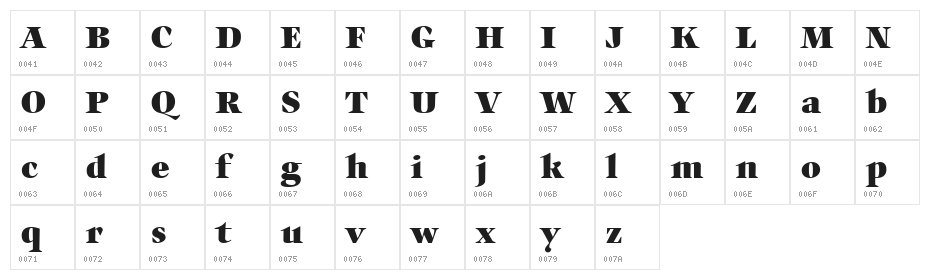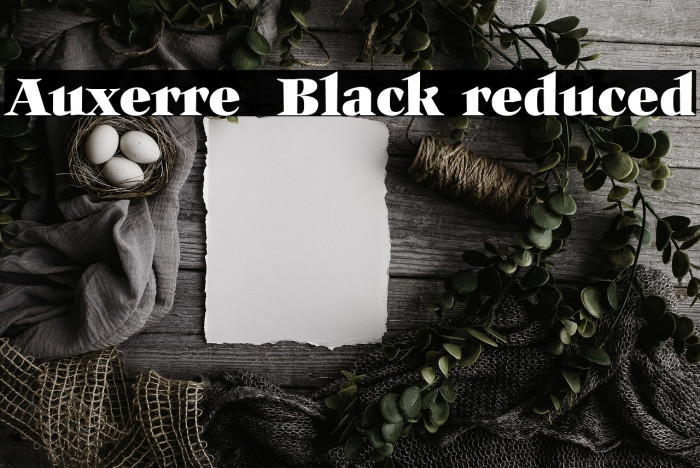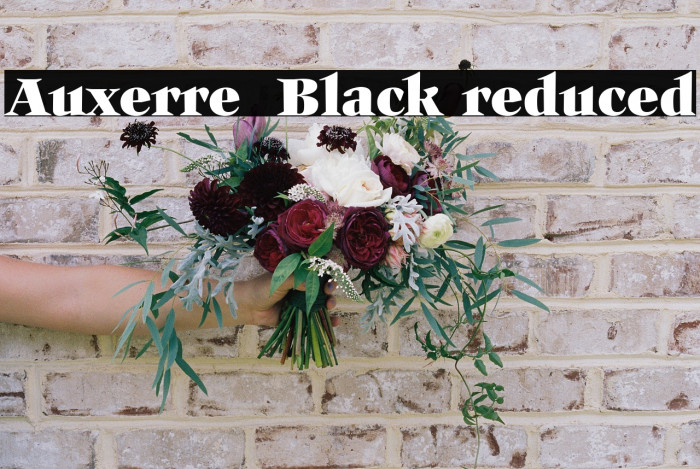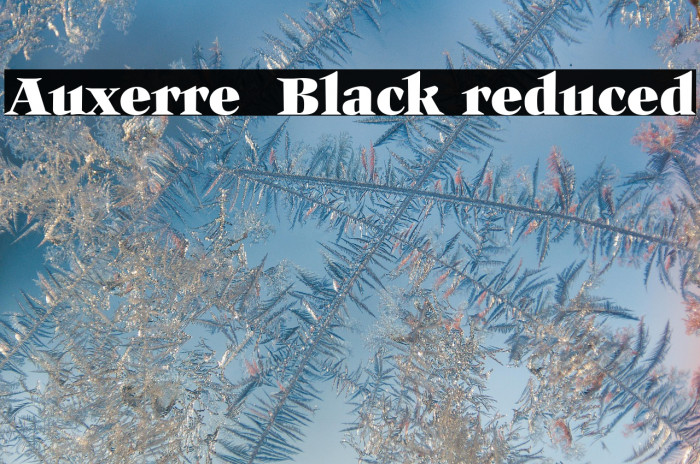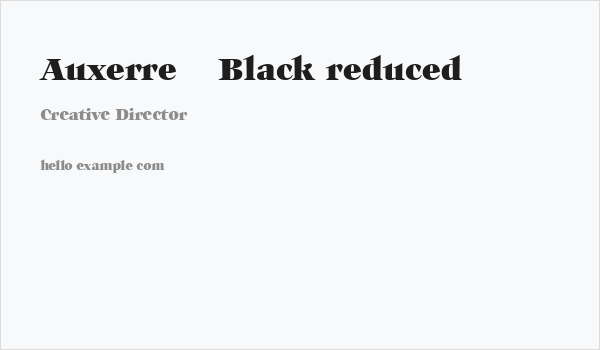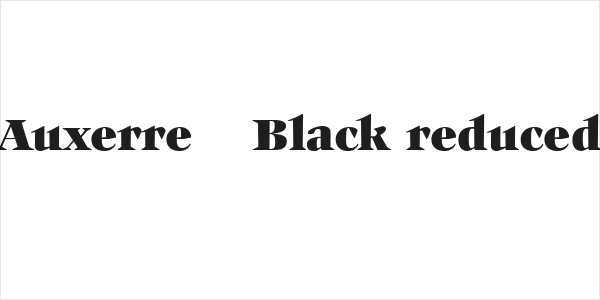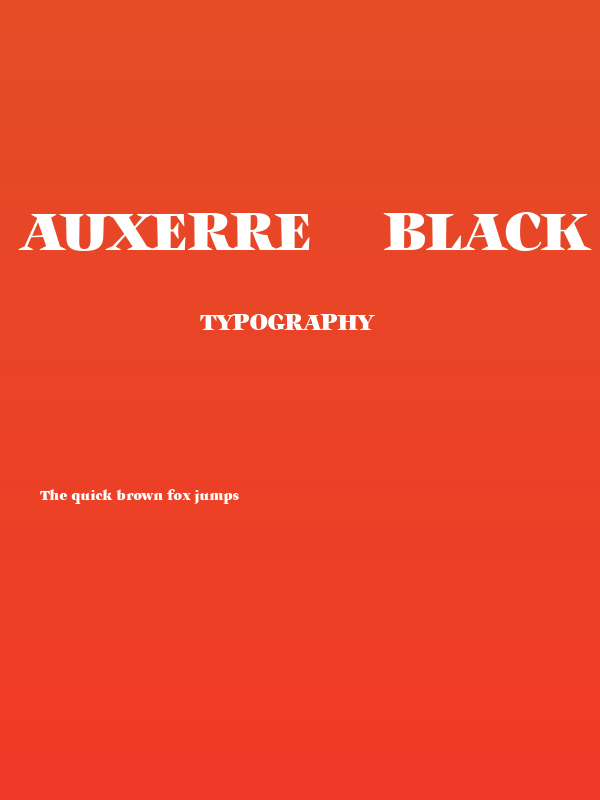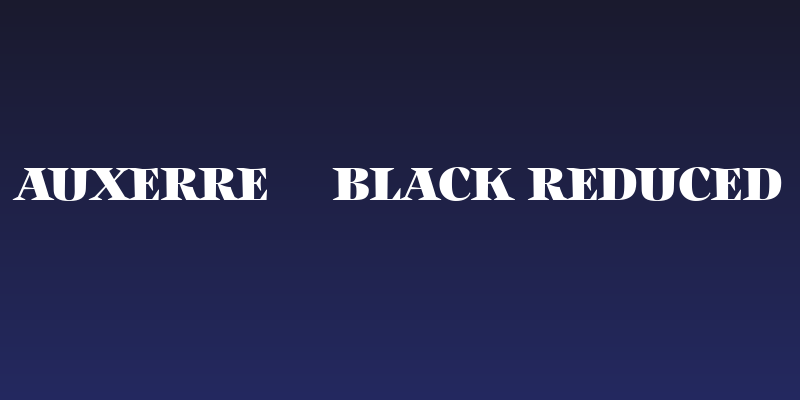
Auxerre 85 Black reduced Font
Auxerre 85 Black reduced Description
This font features a bold and striking design with strong, thick strokes that convey a sense of authority and presence. The serifs are pronounced, adding a classic touch to the overall modern aesthetic. The uppercase letters are particularly commanding, with a uniform height and width that create a cohesive look. The lowercase letters maintain the boldness of the uppercase, with slightly rounded edges that soften the overall appearance. The numbers are equally bold, ensuring they stand out in any context. This font is ideal for making a statement, whether in print or digital media.
| Proposed Projects | Ideal for headlines, branding, posters, and any project requiring a strong visual impact. |